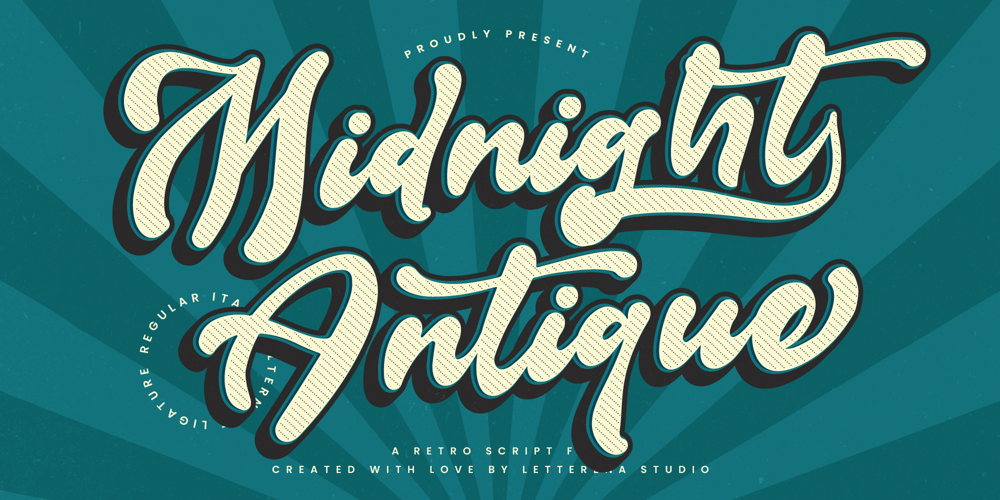
Midnight Antique Font Family was designed by Heru Utama Putra and published by Letterena Studios. Midnight Antique contains 2 styles and family package options. Midnight Antique is a stylish retro script font that brings a vintage charm to your designs. With elegant swirls and smooth curves, it evokes a nostalgic feel perfect for classic-themed projects like invitations, posters, and branding materials.